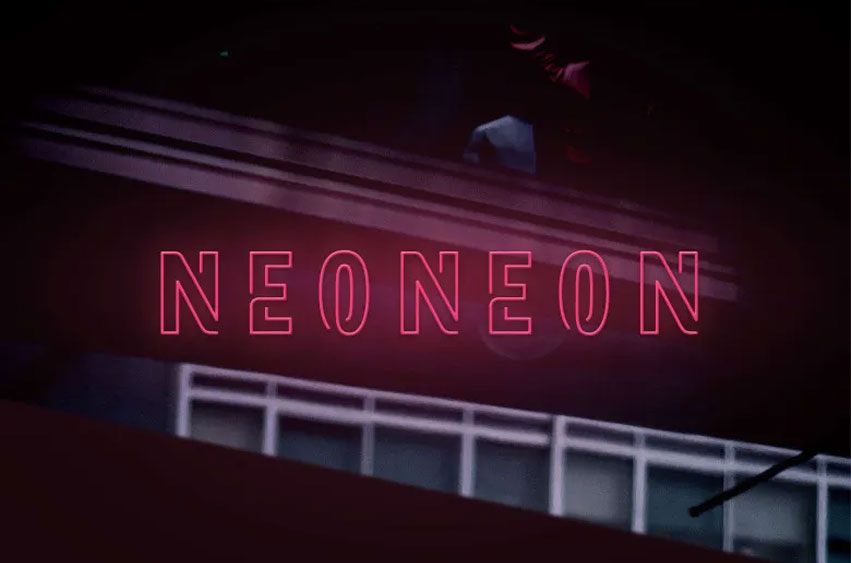
Neoneon Font
Neoneon Font is our inaugural font creation and emulates neon signs from the 80s in its design.
This font can be used to make headlines, covers, advertisements and posters using graphic design.